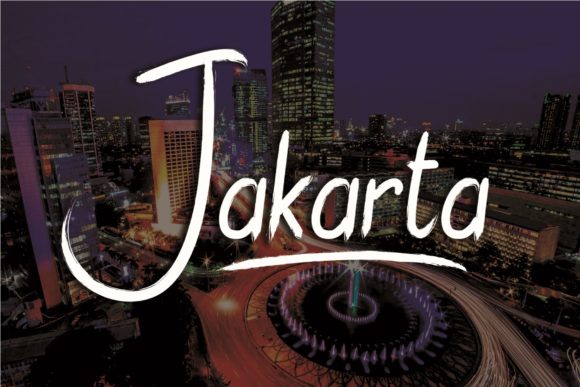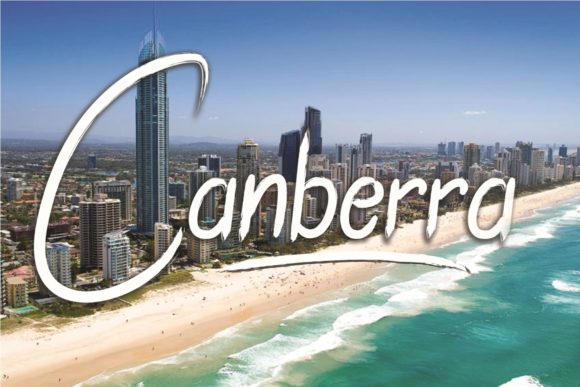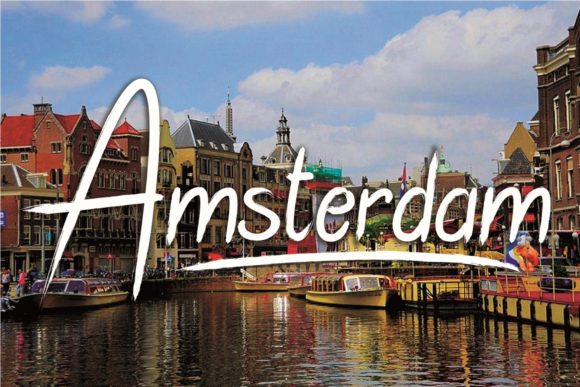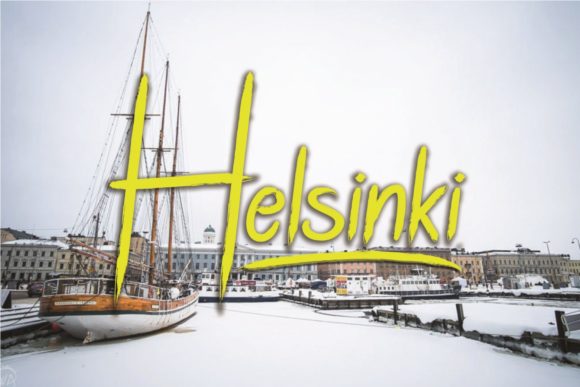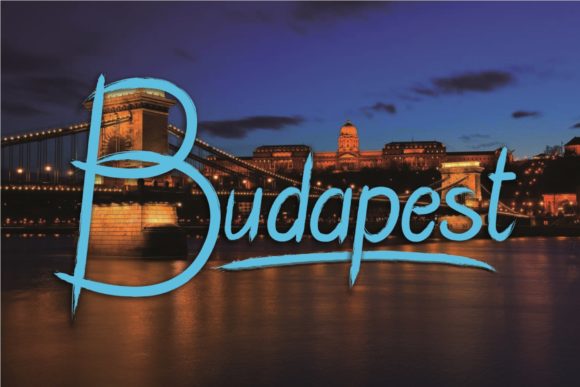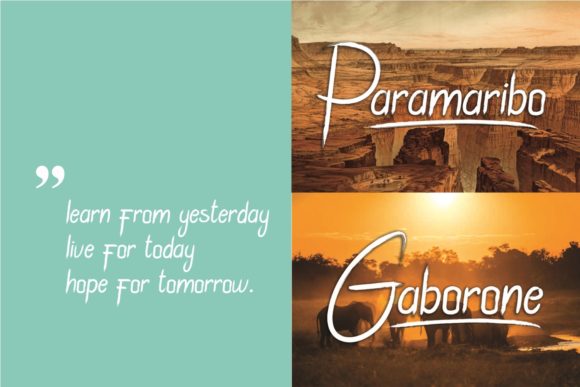
Jakarta Font
About Jakarta Font
The Jakarta is an authentic handmade brush font. It has a stylish street style and is perfect for extreme sport usage.
It can also be used for logos, headers, titles, prints, apparel & other creative designs.